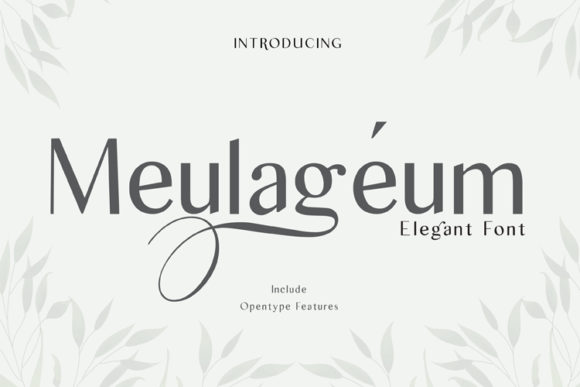
Behold Meulageum, a majestic serif font that harmoniously blends timeless elegance with a touch of modern refinement. Its meticulously crafted characters exude a captivating aura of luxury and sophistication, promising to elevate your designs to new heights of visual appeal. Imagine your logos, posters, covers, packaging, t-shirts, business cards, and wedding invitations adorned with Meulageum's enchanting curves and delicate serifs. Prepare to be captivated by the allure of this font, as it transforms your creative visions into tangible masterpieces.
Immerse yourself in a world of creative possibilities with Meulageum. Whether you're a seasoned designer or just starting your design journey, this font will effortlessly elevate your work to the next level. Its versatility extends across a wide range of applications, from captivating logos and eye-catching posters to elegant covers and sophisticated packaging. Unleash your imagination and let Meulageum guide you towards design excellence.
Experience the exquisite beauty of Meulageum's characters, meticulously designed to evoke a sense of wonder and admiration. Each letterform is a testament to the font's unwavering commitment to quality and attention to detail. Witness the harmony of classic style and contemporary elegance as Meulageum breathes life into your designs, transforming them into visual symphonies that resonate with your audience.
Indulge in the luxury of Meulageum, a font that embodies opulence and grace. Its intricate details and refined aesthetic will add a touch of glamour to your creations, leaving an indelible impression on your viewers. Imagine your designs adorned with Meulageum's timeless beauty, captivating their attention and evoking a sense of awe and admiration. Let this font be your gateway to a world of elegance and sophistication.